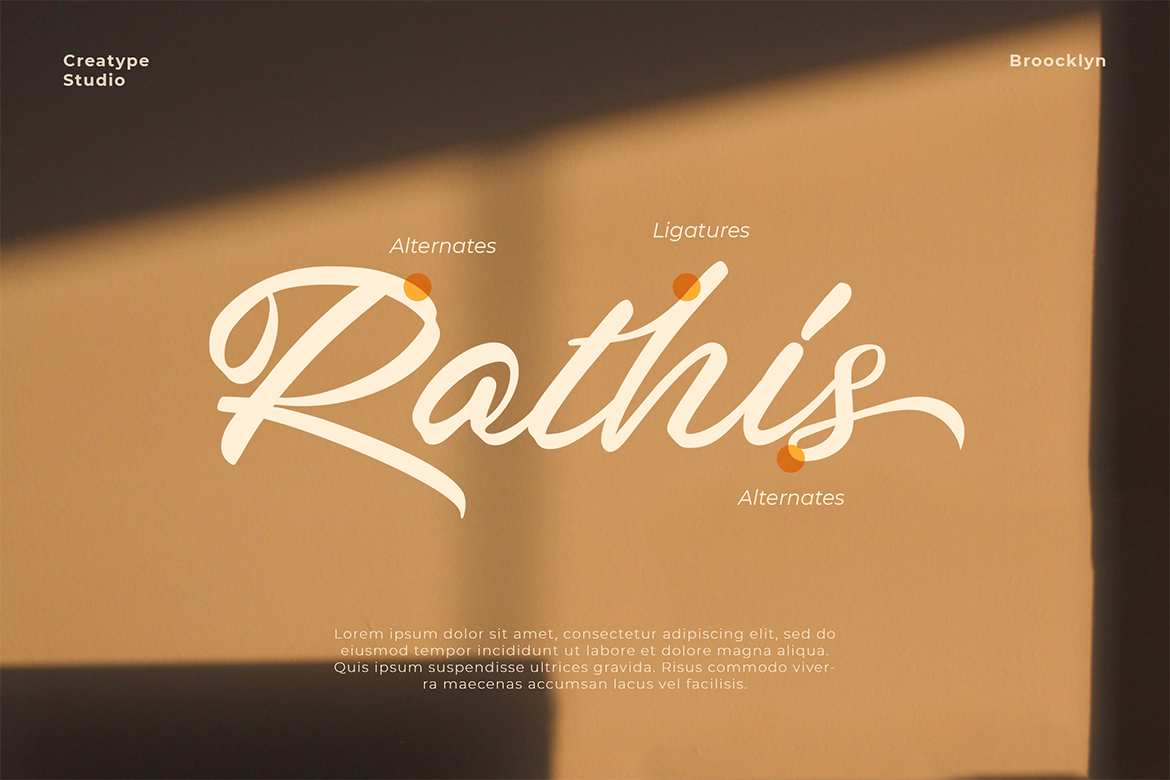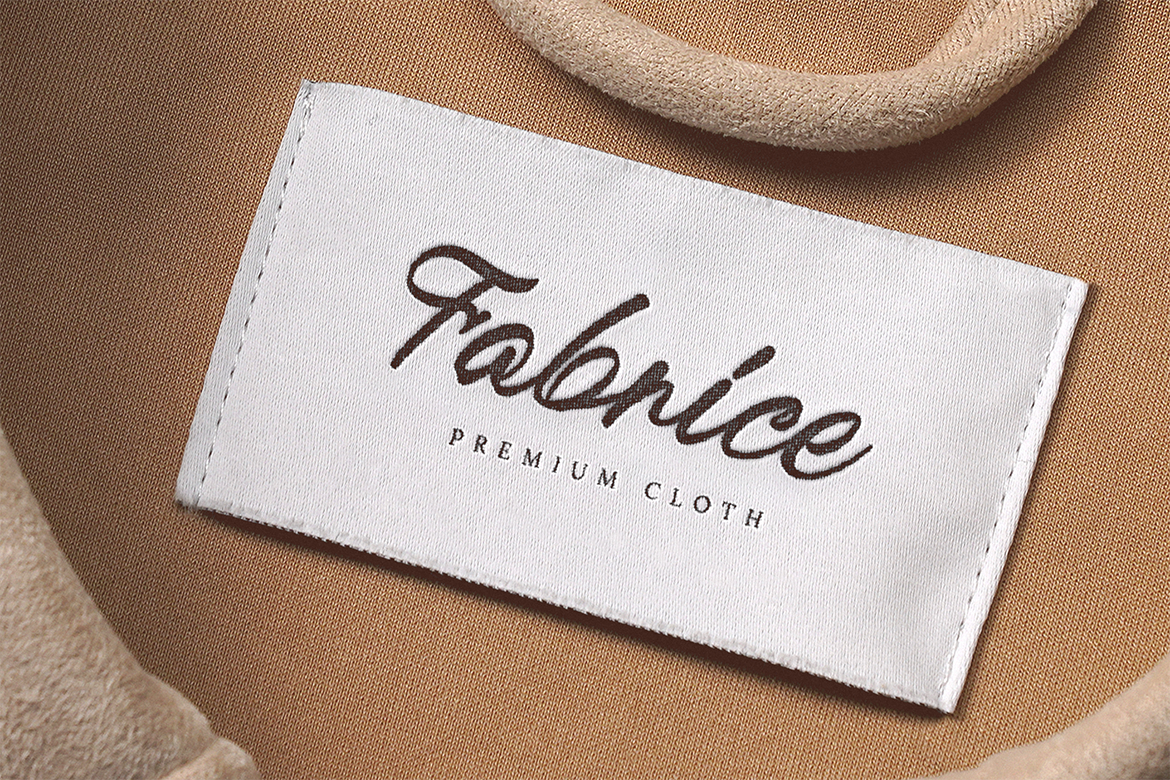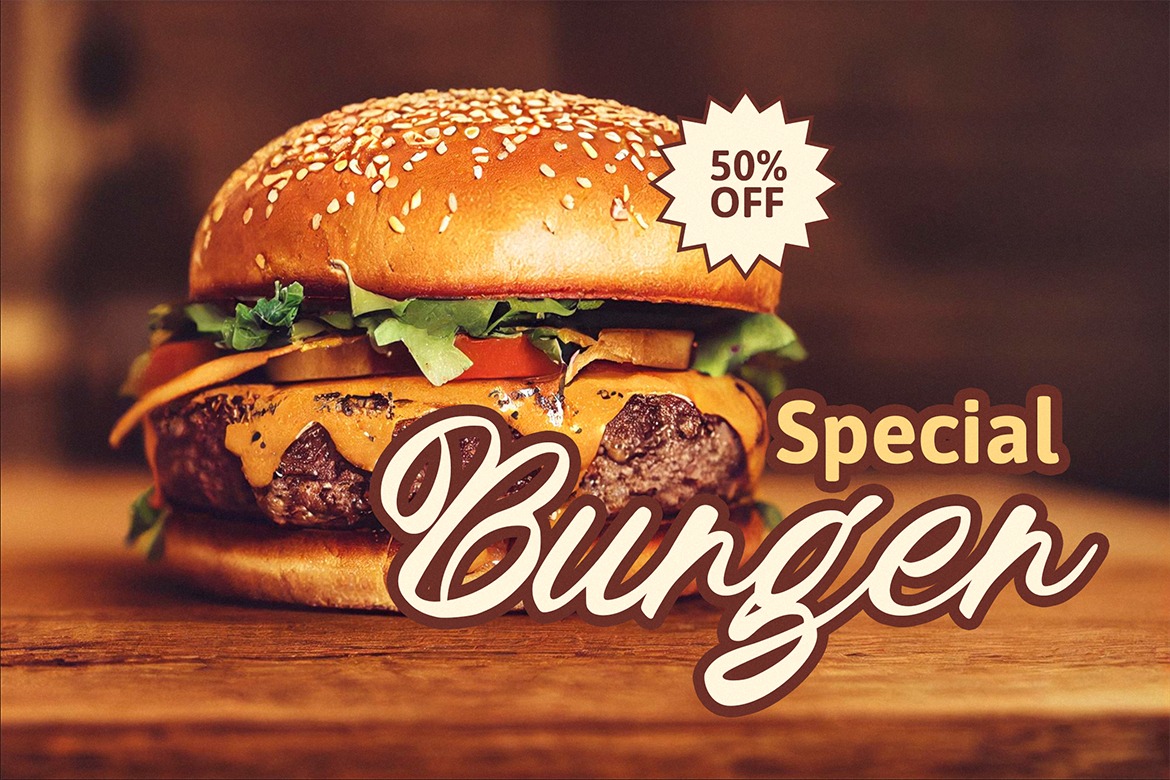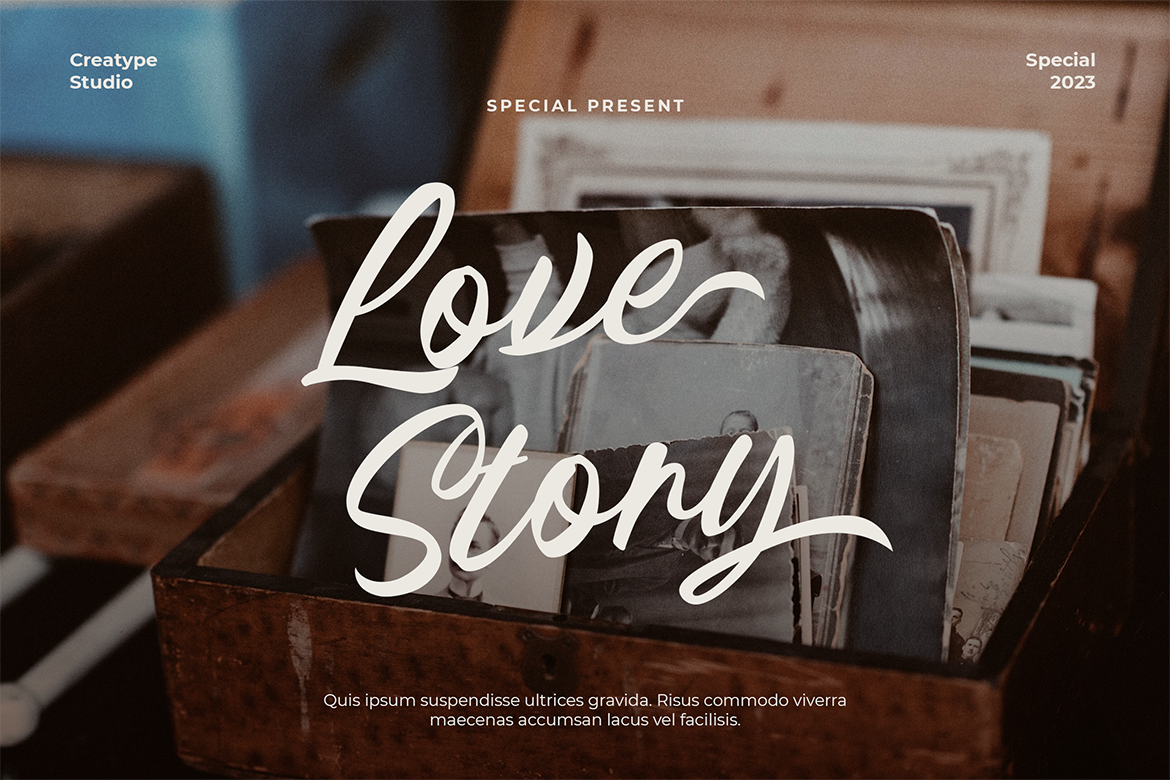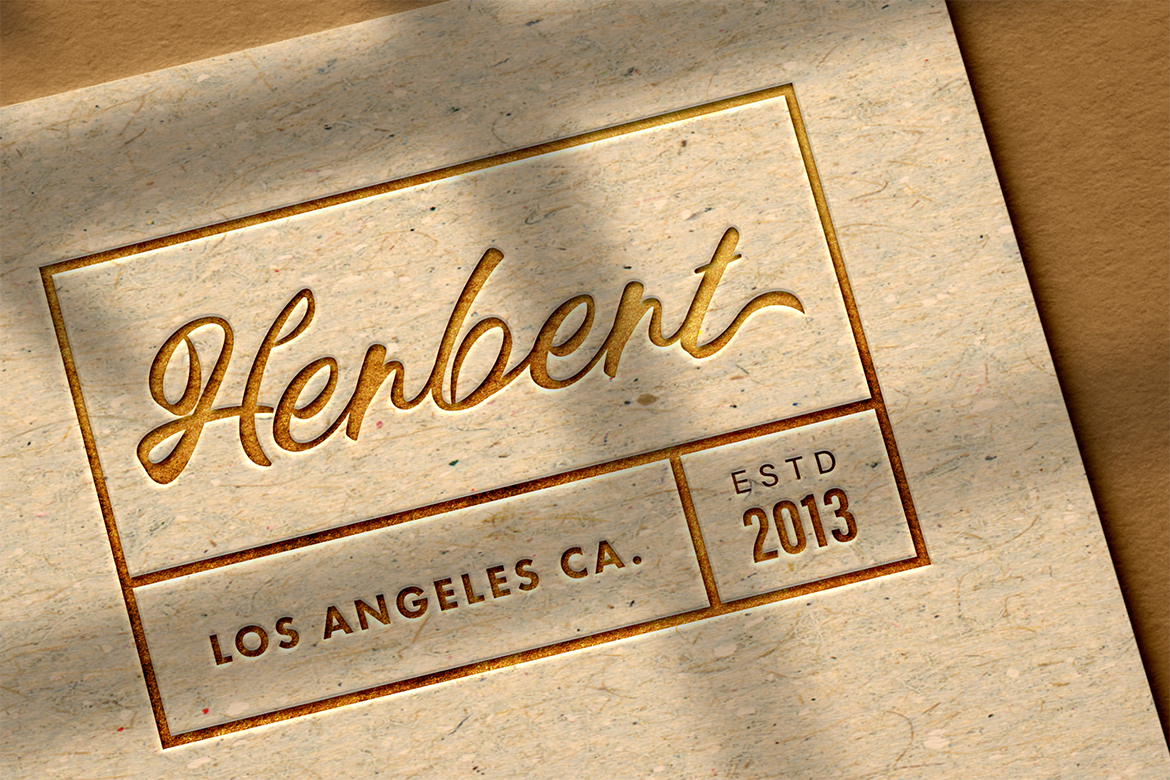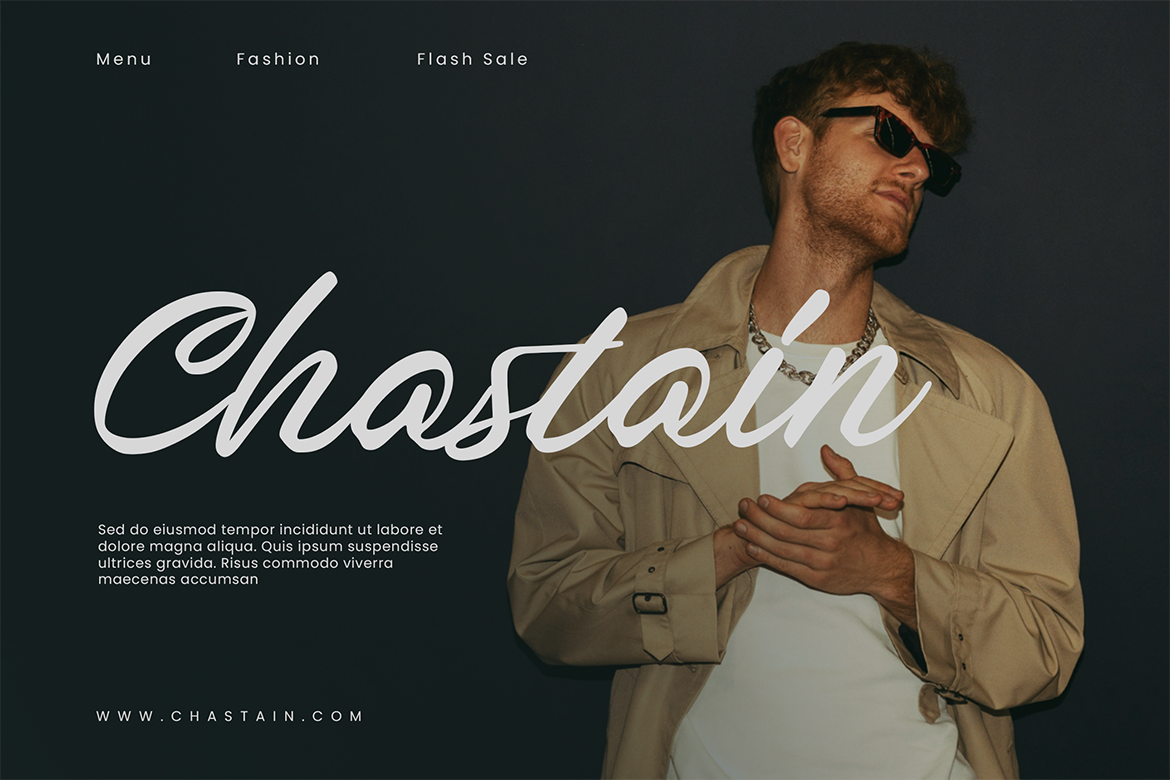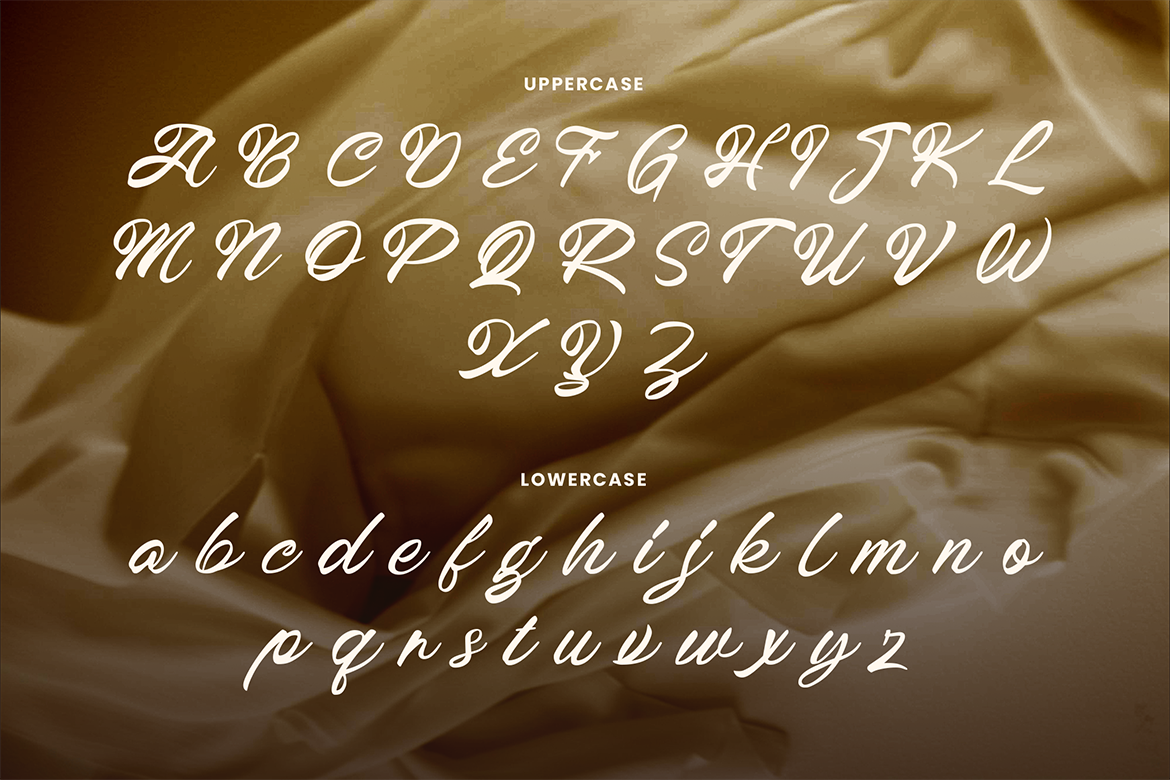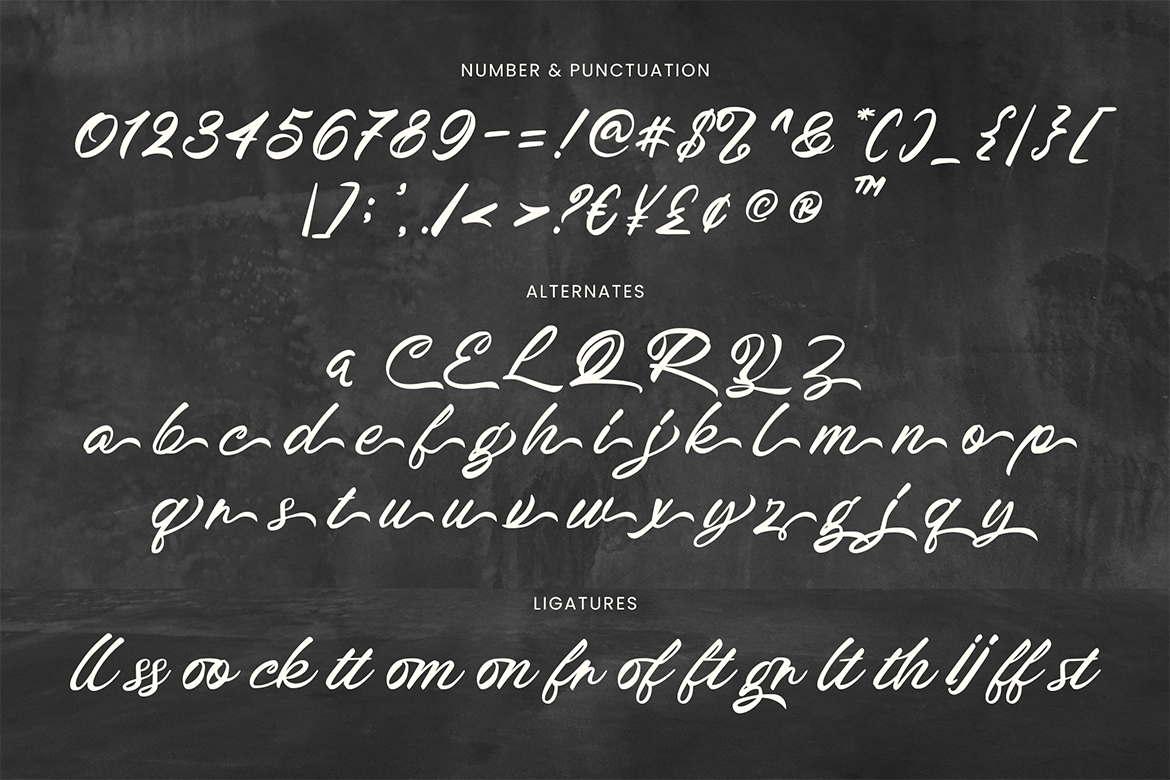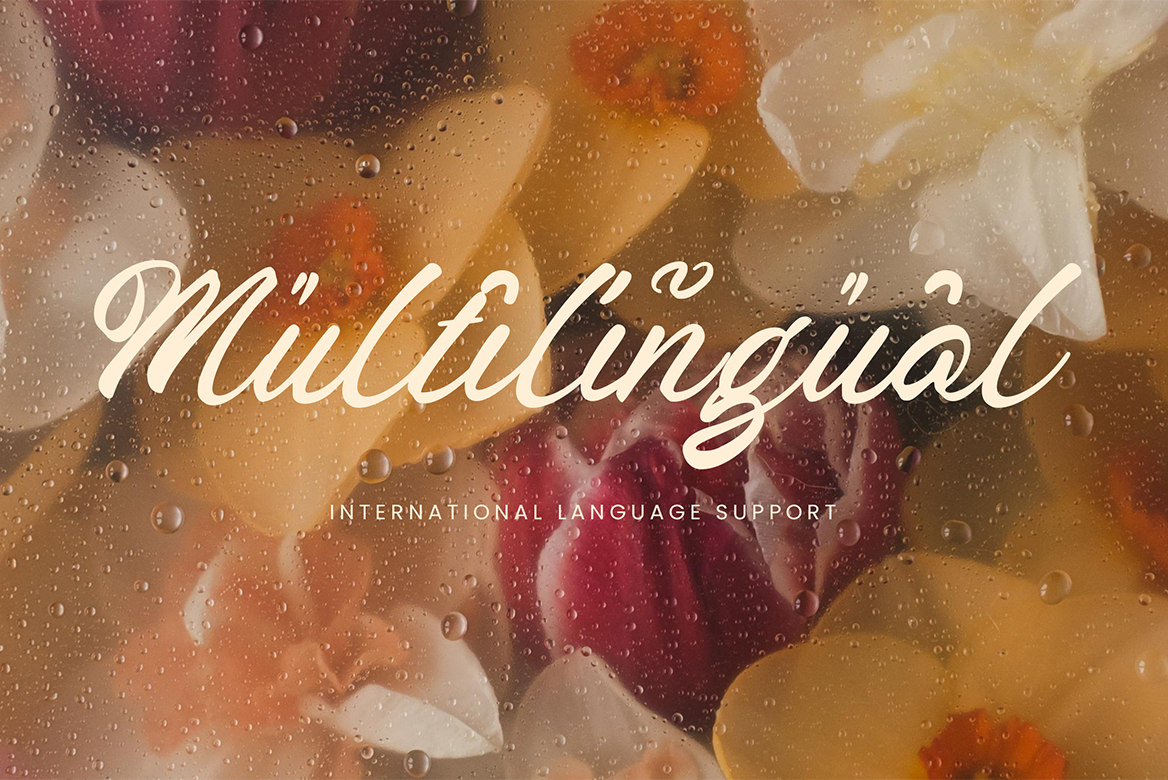
Broocklyn, a brush script font that brings the human touch to your brand, offering a charmingly rustic appeal.
Broocklyn is perfect for branding projects, logos, wedding designs, social media posts, advertisements, product packaging, product designs, label, photography, watermark, invitation, stationery, and any projects that need handwriting taste.
Broocklyn Brush Script Font